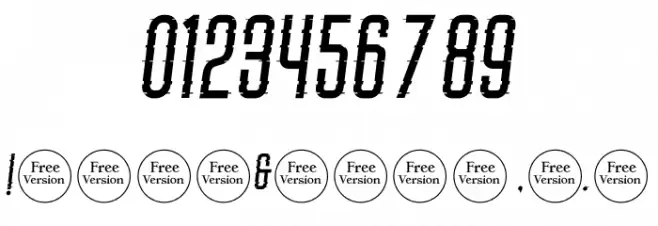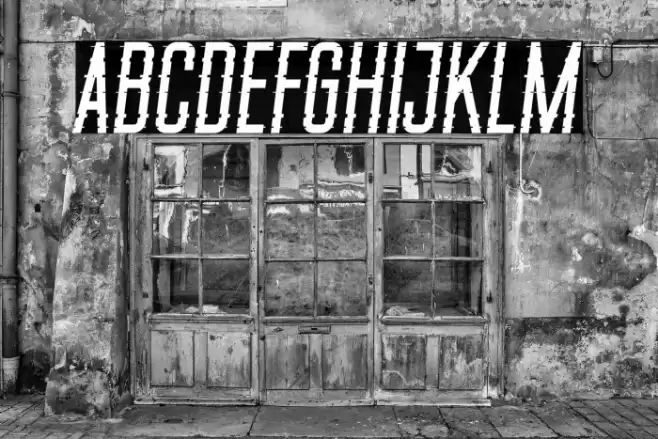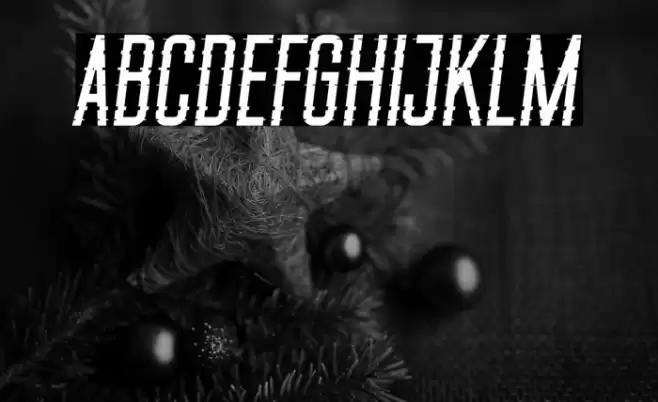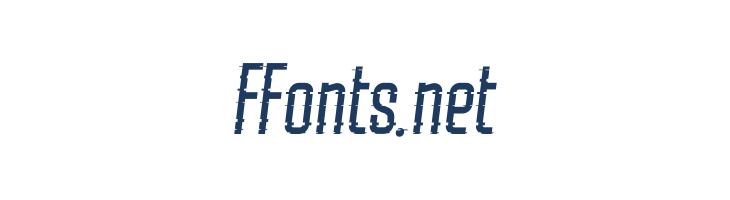
Uncracked Free Trial Font
This font features a dynamic and modern design with a distinct slanted style, giving it a sense of movement and energy. The characters are elongated and slightly condensed, with a unique pattern that adds texture and depth. The uppercase and lowercase letters maintain a consistent style, while the numerals are clear and easy to read. Special characters are included, each with the same distinctive slant and pattern. This font's bold appearance makes it suitable for impactful designs.
| Proposed Projects | Ideal for sports branding, dynamic posters, and modern advertising campaigns. |